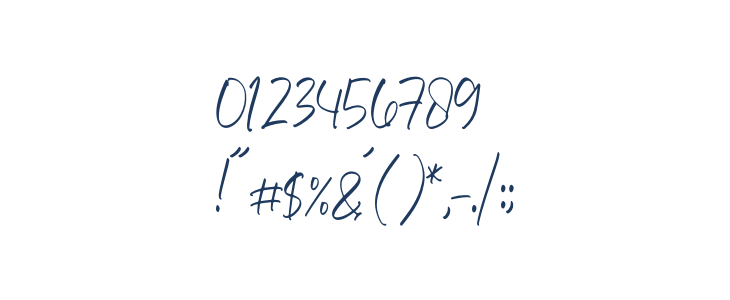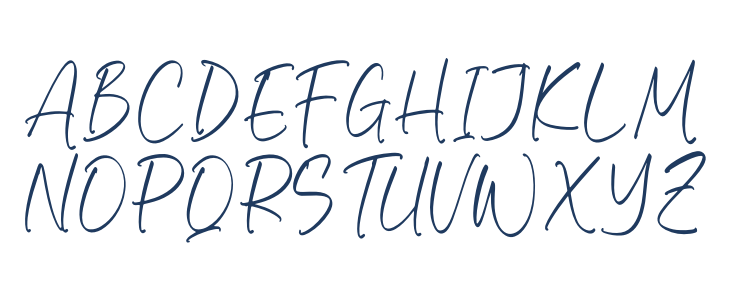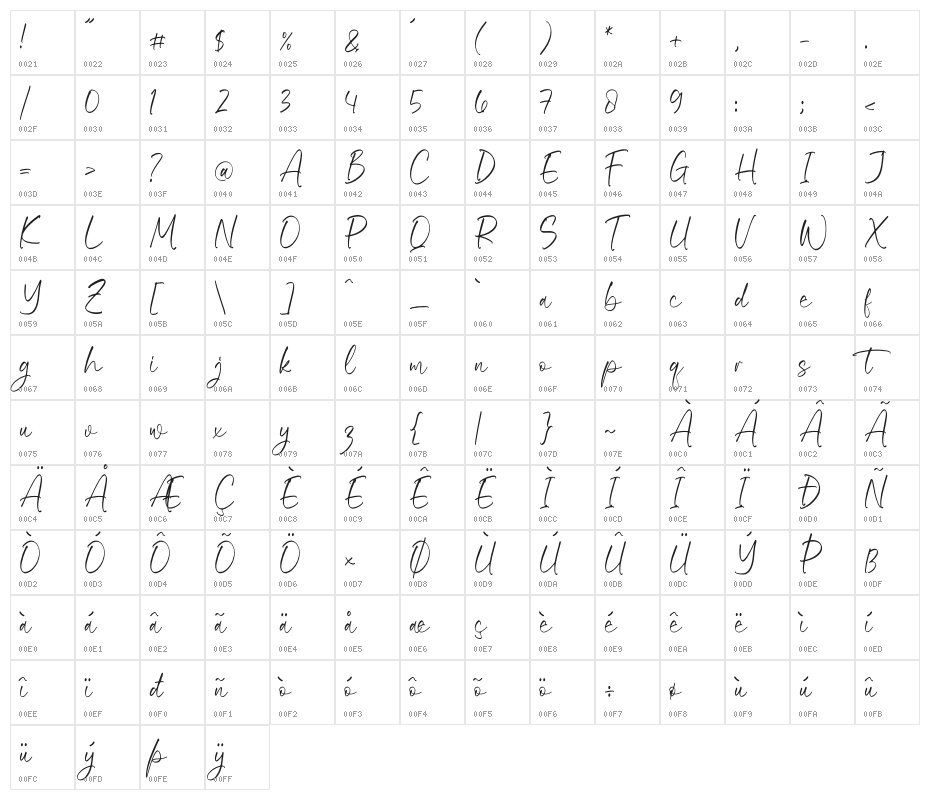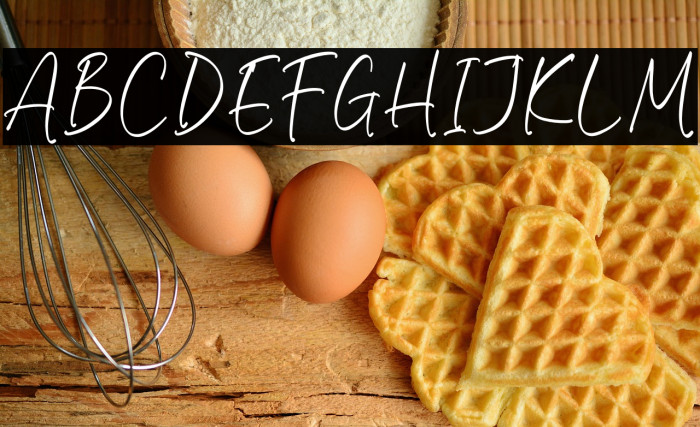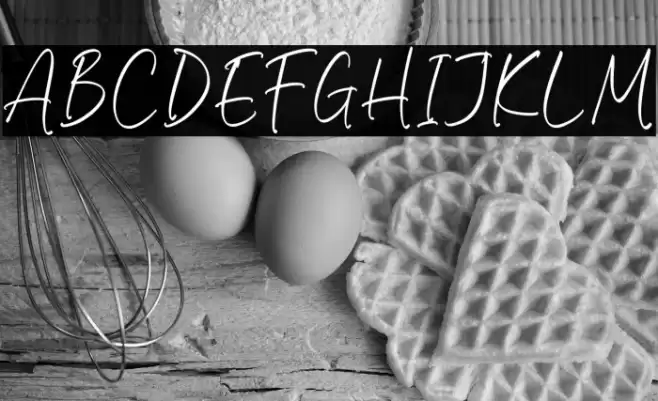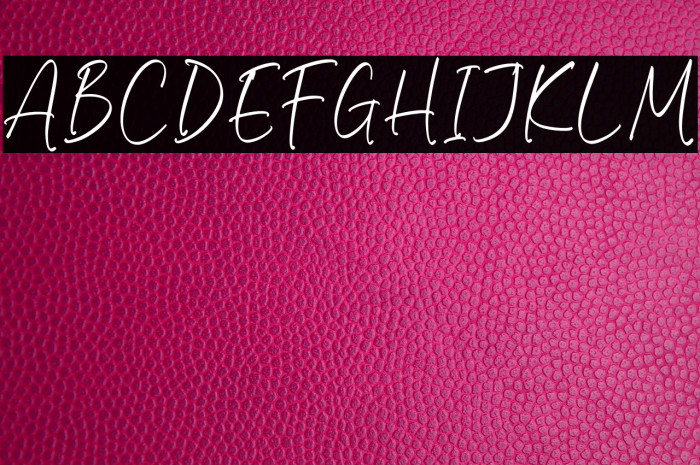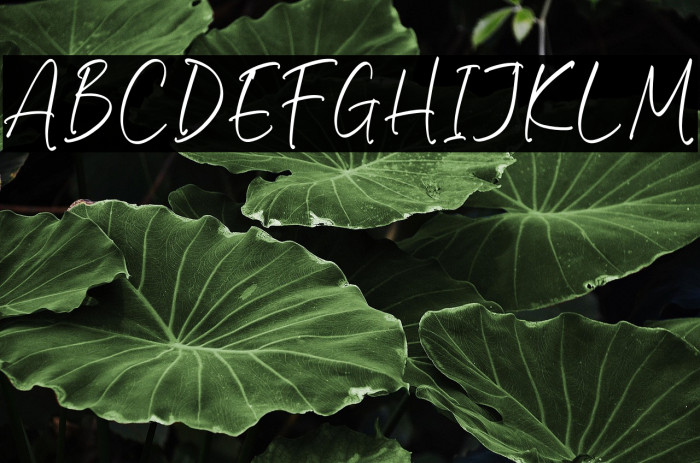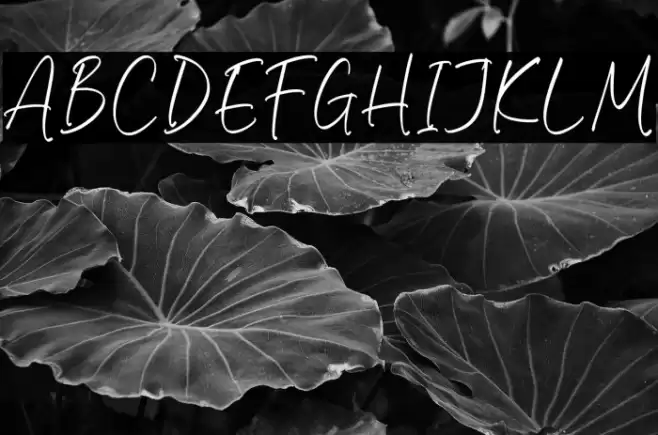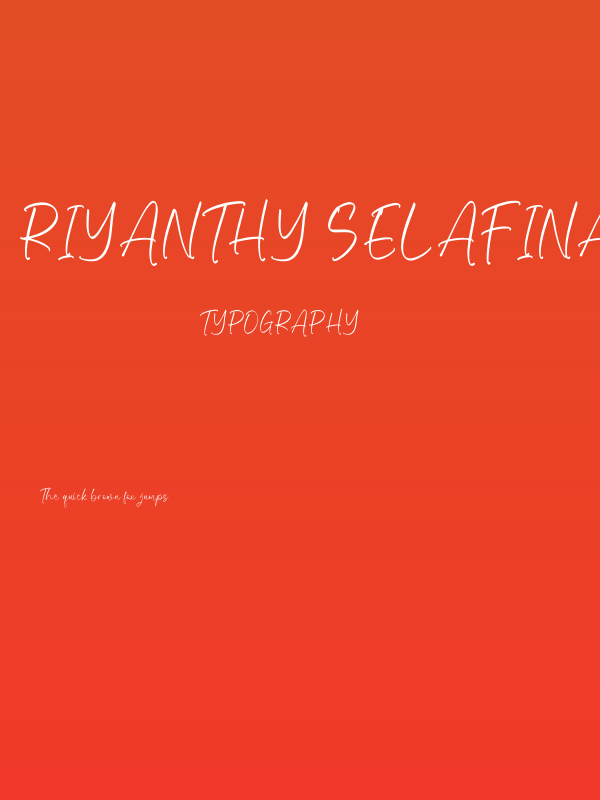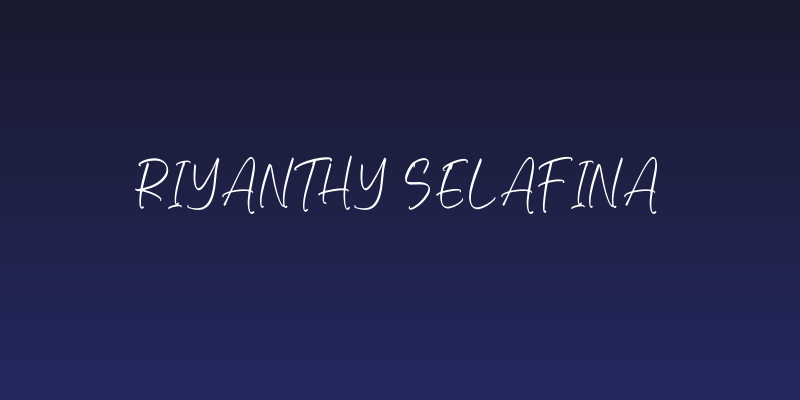
Riyanthy Selafina Font
Riyanthy Selafina Description
A handwritten, cursive script font with a casual and elegant style, featuring thin, flowing lines and slight variations in stroke width.
| Overall Style | Casual, Elegant, Handwritten |
| Use Case | Headlines, Personal projects, Invitations, Logos |